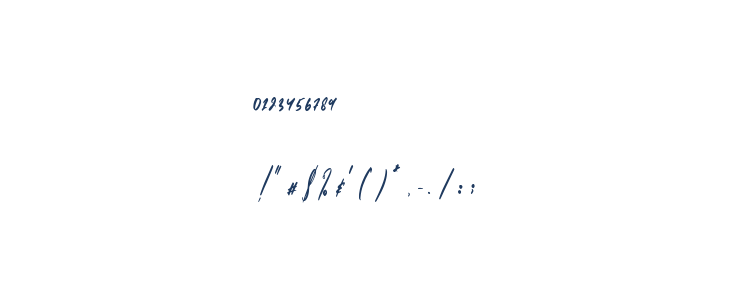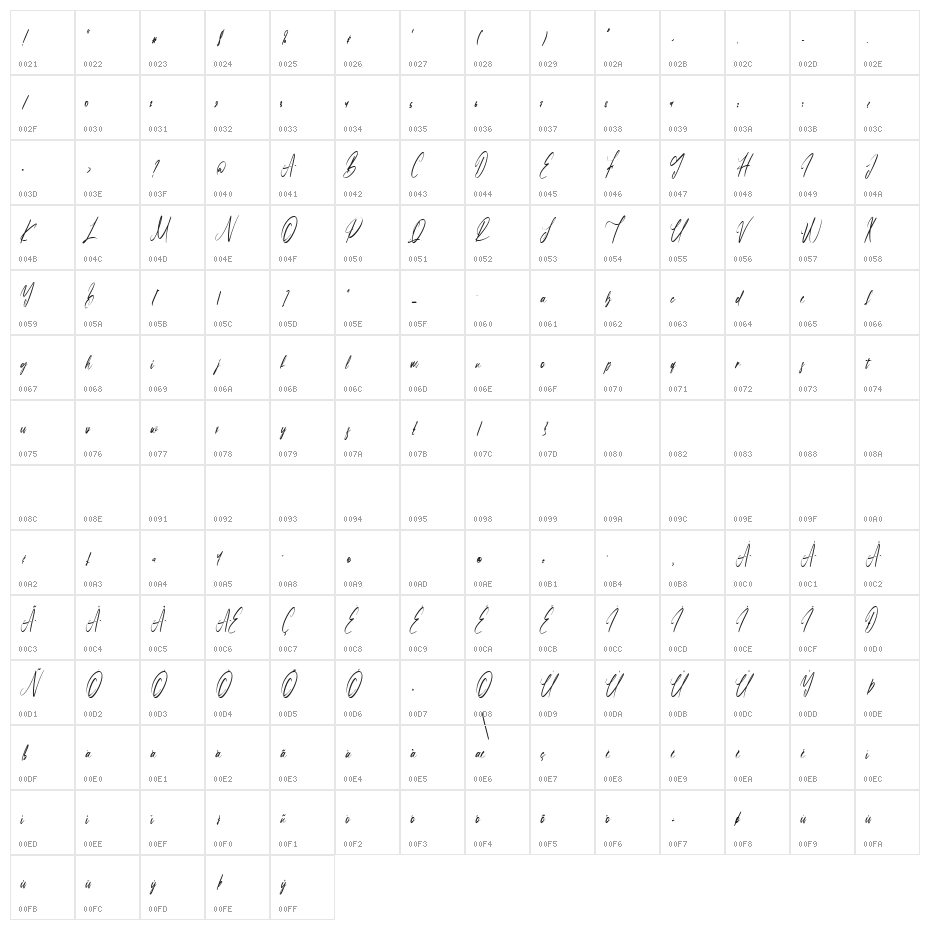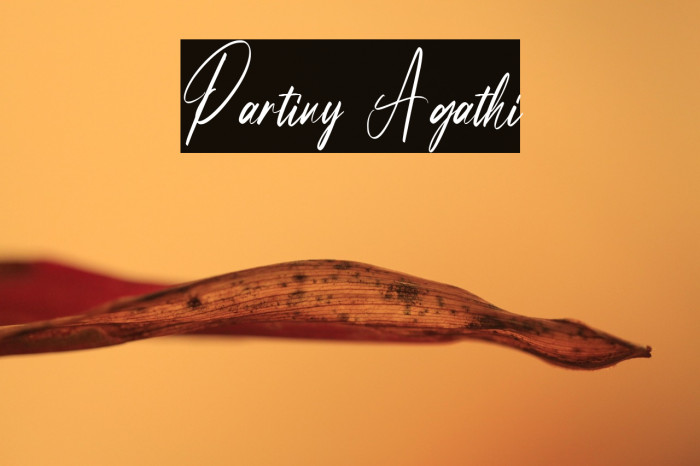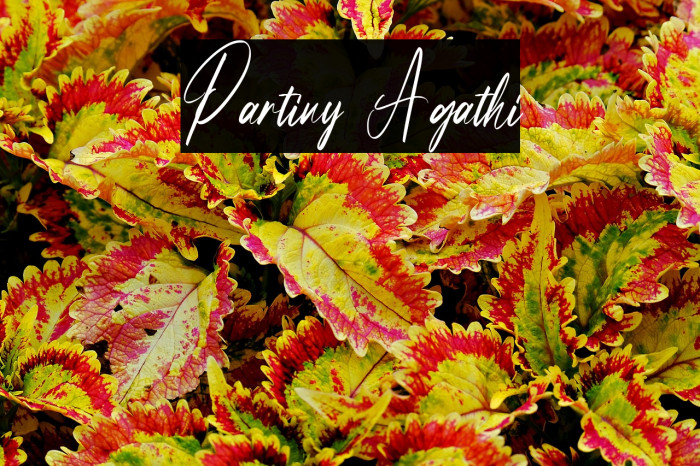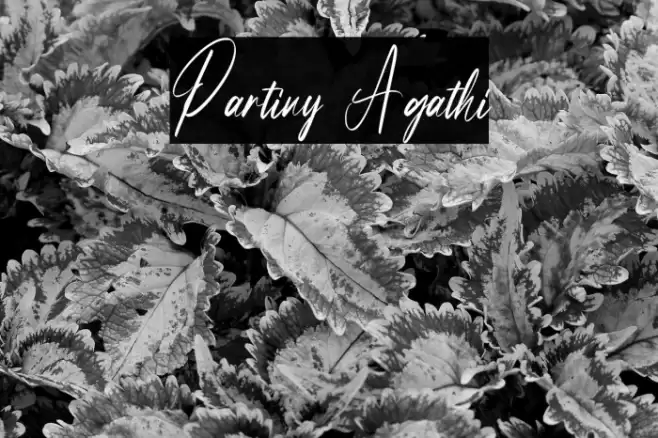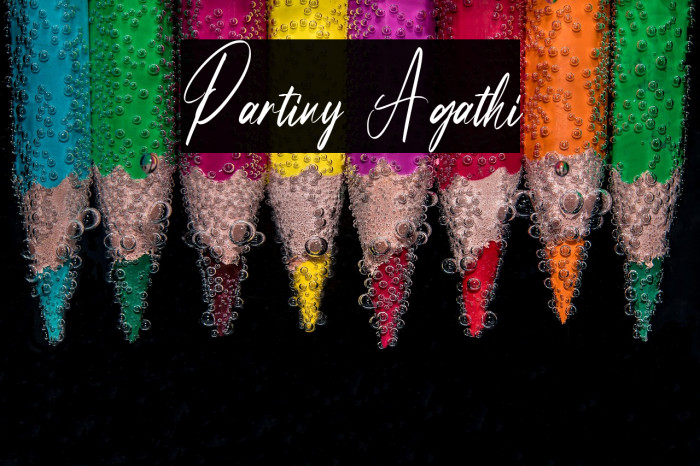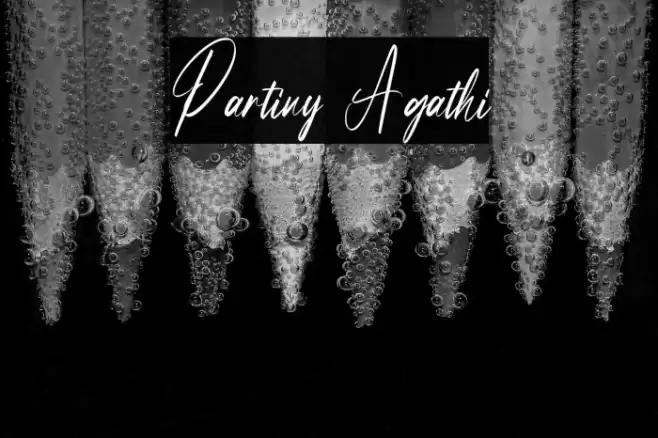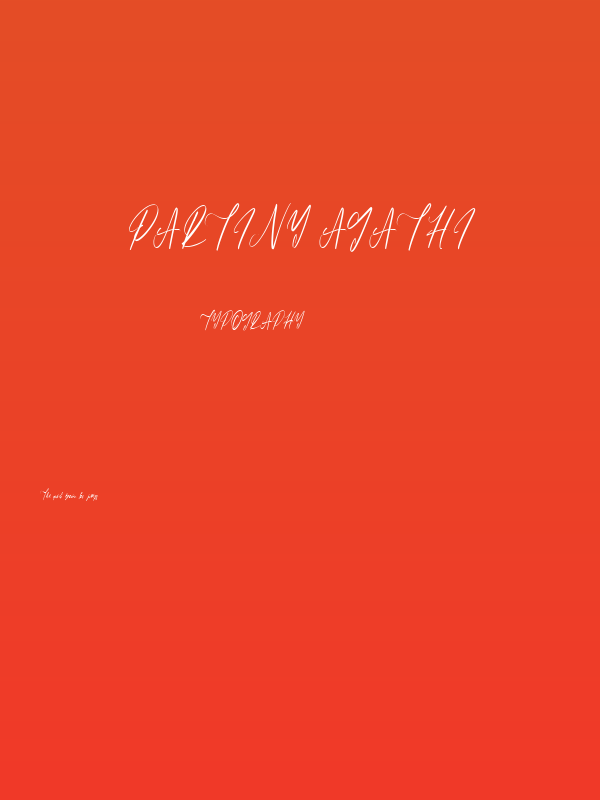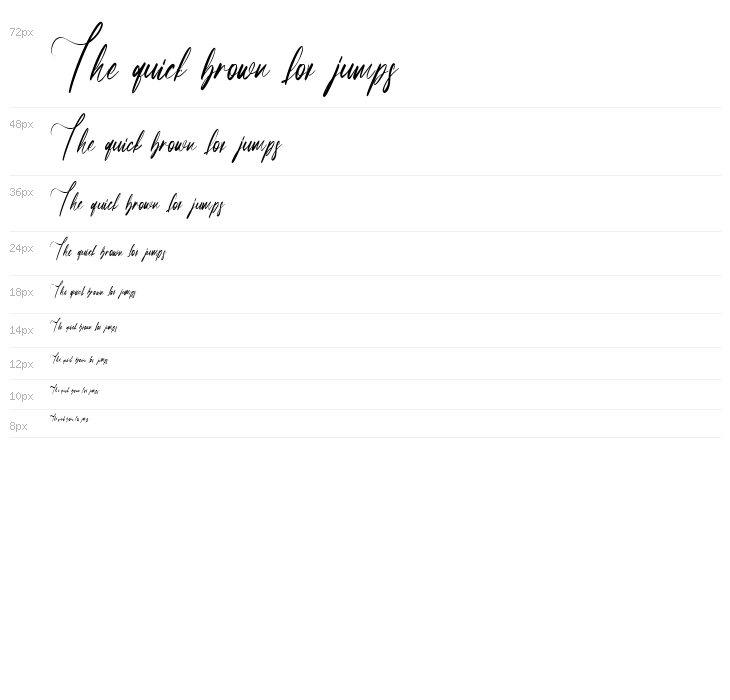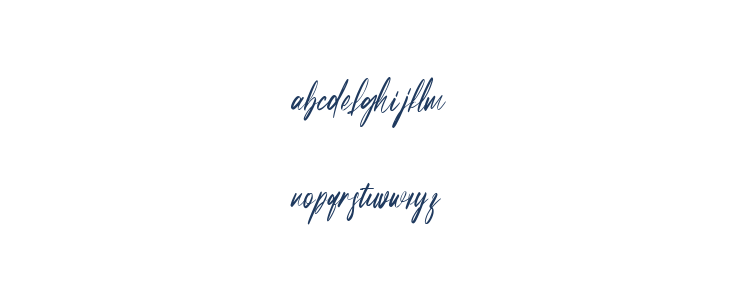
Partiny Agathi Font
Partiny Agathi Description
This elegant script font features flowing, interconnected letters with a sophisticated and artistic flair. The uppercase characters are tall and graceful, with sweeping curves and delicate loops that give a sense of movement and fluidity. The lowercase letters maintain a consistent style, with smooth transitions and a slightly more compact form. Numbers and special characters are designed to match the overall aesthetic, ensuring a cohesive look across all text elements. This font's intricate details and stylish appearance make it ideal for projects that require a touch of elegance and refinement.